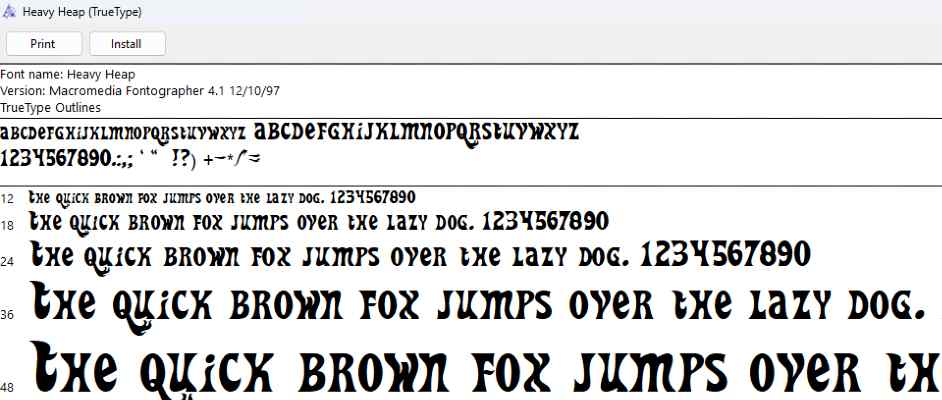
The name of the Hot Wheels font that looks alot like the letting used in the logo for this famous childrens toy manufacturer, is a typeface by the name of Heavy Heap. It was created by�Ray Larabie�who is a prolific and well known font designer. It has subsequently been published by the team at Typodermic Fonts.
Here is screenshot of the character map that I recently created for this font, showcasing all of the individual glyphs that are included:
Want to know what this typeface looks like, well here's another image sneak peek of some of the design options that you can achieve: